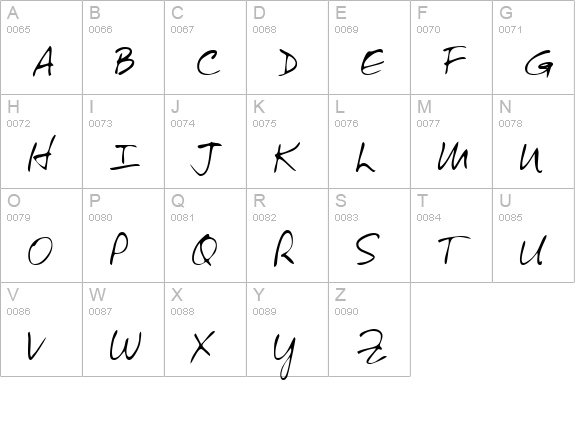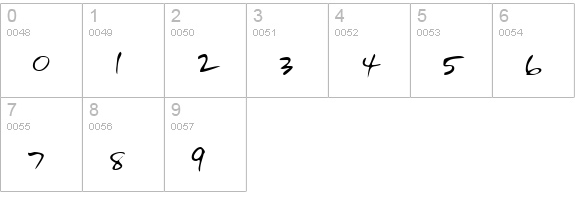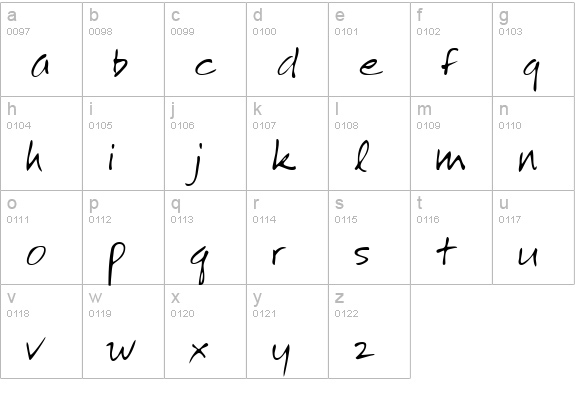
VictorsHand Regular is the standard, neutral variant in the VictorsHand typeface family \xE2\x80\x94 well suited to general body text, paragraphs, and standard typographic work.
VictorsHand Regular is a captivating and versatile font that exudes elegance and sophistication. With its carefully crafted brush strokes and smooth curves, this font is perfect for adding a touch of personality and charm to any design project. Featuring a balanced combination of thick and thin lines, VictorsHand Regular strikes the perfect balance between modernity and classic appeal. Its unique letterforms effortlessly capture attention and leave a lasting impression. This font is freely available to download at FontsMarket.com, making it accessible to designers, artists, and creatives alike. Whether you're working on a logo, branding materials, invitations, or any other creative endeavor, VictorsHand Regular is a reliable choice that will elevate your designs to new heights. With its wide range of glyphs and ligatures, VictorsHand Regular offers endless possibilities for customization and creativity. Its versatility allows it to seamlessly adapt to various design styles and contexts, ensuring that your projects stand out from the crowd. Whether you're aiming for a sophisticated and refined look or a more playful and whimsical vibe, VictorsHand Regular has got you covered. Its timeless appeal and attention to detail make it a must-have font for any designer's toolkit. Experience the beauty and flexibility of VictorsHand Regular today, and let your creativity soar. Download this font for free at FontsMarket.com and unlock a world of design possibilities.